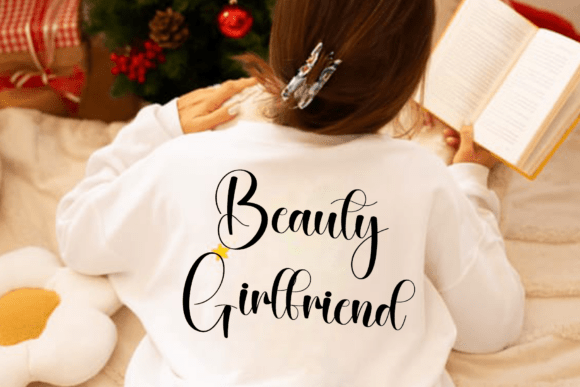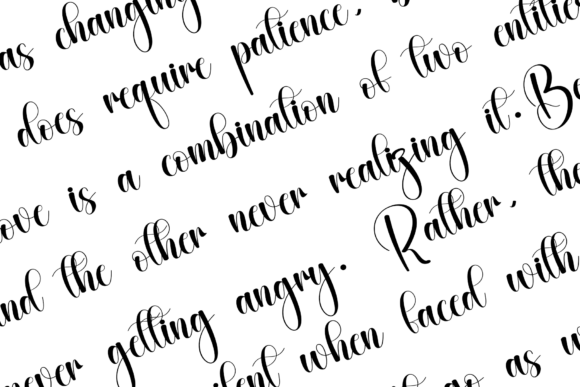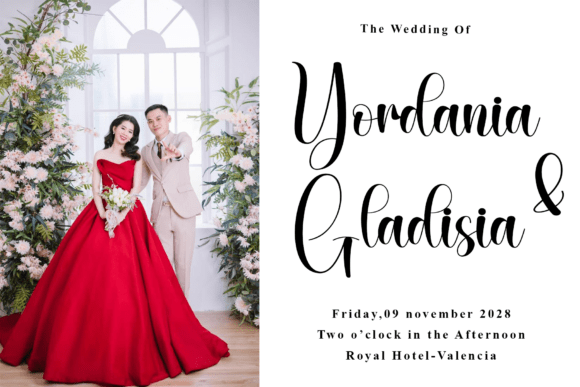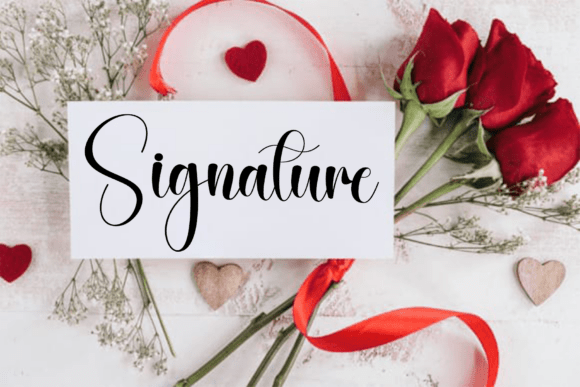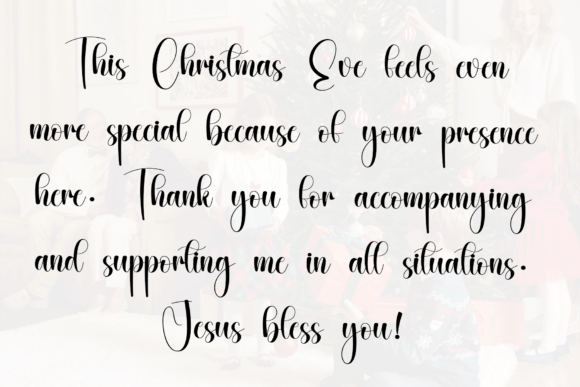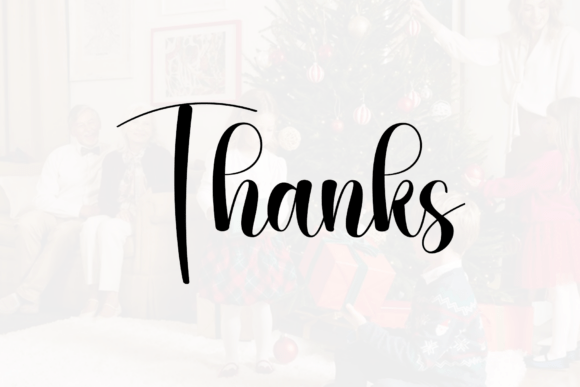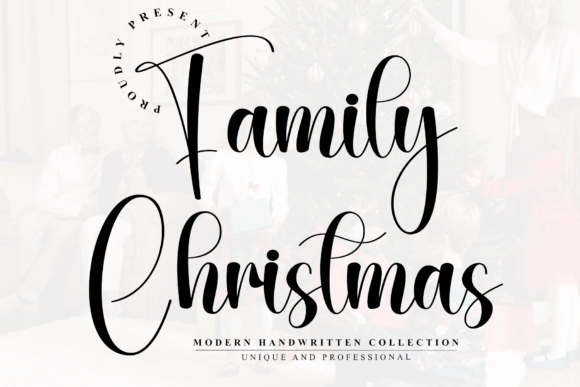
Capture the Magic of the Festive Season with Family Christmas Font
The holiday season is upon us, and with it comes the desire to create beautiful, memorable, and elegant designs that capture the essence of Christmas. For designers and crafters looking to add a touch of sophistication and warmth to their holiday projects, the Family Christmas font is the perfect choice. This modern handwritten collection is designed to wrap your text in luxury, elegance, and holiday cheer, making it the quintessential choice for all your holiday design needs.
A Luxurious and Professional Script Typeface
The Family Christmas font is a highly professional script typeface that boasts beautiful, sweeping swashes, elegant ligatures, and dramatic ascenders and descenders. These features give it a truly bespoke calligraphic appearance that is sure to impress. The font’s graceful connections and varying thickness emulate high-end ink penmanship, ensuring that your headlines possess an unmatched sense of occasion and style.
Perfect for Holiday Design Needs
The Family Christmas typeface is the perfect choice for all your holiday design needs. Whether you’re crafting exquisite Christmas card personalized messages, designing elegant New Year’s party invitations, creating sophisticated seasonal branding, or making unique gift tags, this font has got you covered. Its luxurious and elegant appearance makes it ideal for creating designs that are both memorable and special.
A Handwritten Collection with a Perfect Balance of Heartfelt Script and Decorative Luxury
The Family Christmas font provides the perfect balance of heartfelt script and decorative luxury, making every word feel special and memorable. This handwritten collection is designed to evoke the warmth and magic of the festive season, making it perfect for designers and crafters who want to create designs that are both elegant and heartfelt.
Key Features of Family Christmas Font
- Modern Handwritten Collection: The Family Christmas font is a modern handwritten collection that captures the essence of the festive season.
- Luxurious and Elegant: The font boasts a luxurious and elegant appearance, making it perfect for high-end designs.
- Beautiful Swashes and Ligatures: The font features beautiful, sweeping swashes and elegant ligatures that give it a truly bespoke calligraphic appearance.
- Dramatic Ascenders and Descenders: The font’s dramatic ascenders and descenders add to its elegance and sophistication.
- Graceful Connections: The font’s graceful connections and varying thickness emulate high-end ink penmanship.
Tips for Using Family Christmas Font
Here are some tips for using the Family Christmas font in your designs:
- Pair it with a Simple Background: Pair the font with a simple background to make it stand out and showcase its elegance.
- Experiment with Swashes: Experiment with the font’s swashes and ligatures to create unique and customized designs.
- Use it for Headlines: Use the font for headlines and titles to add a touch of elegance and sophistication.
- Try it on Gift Tags: Try using the font on gift tags and wrapping paper to add a personal touch.
The Family Christmas font is the perfect choice for designers and crafters looking to capture the magic and elegance of the festive season. With its luxurious and elegant appearance, beautiful swashes and ligatures, and PUA encoding, this font is sure to impress. Whether you’re creating Christmas cards, New Year’s party invitations, or seasonal branding, the Family Christmas font is the quintessential choice for all your holiday design needs.